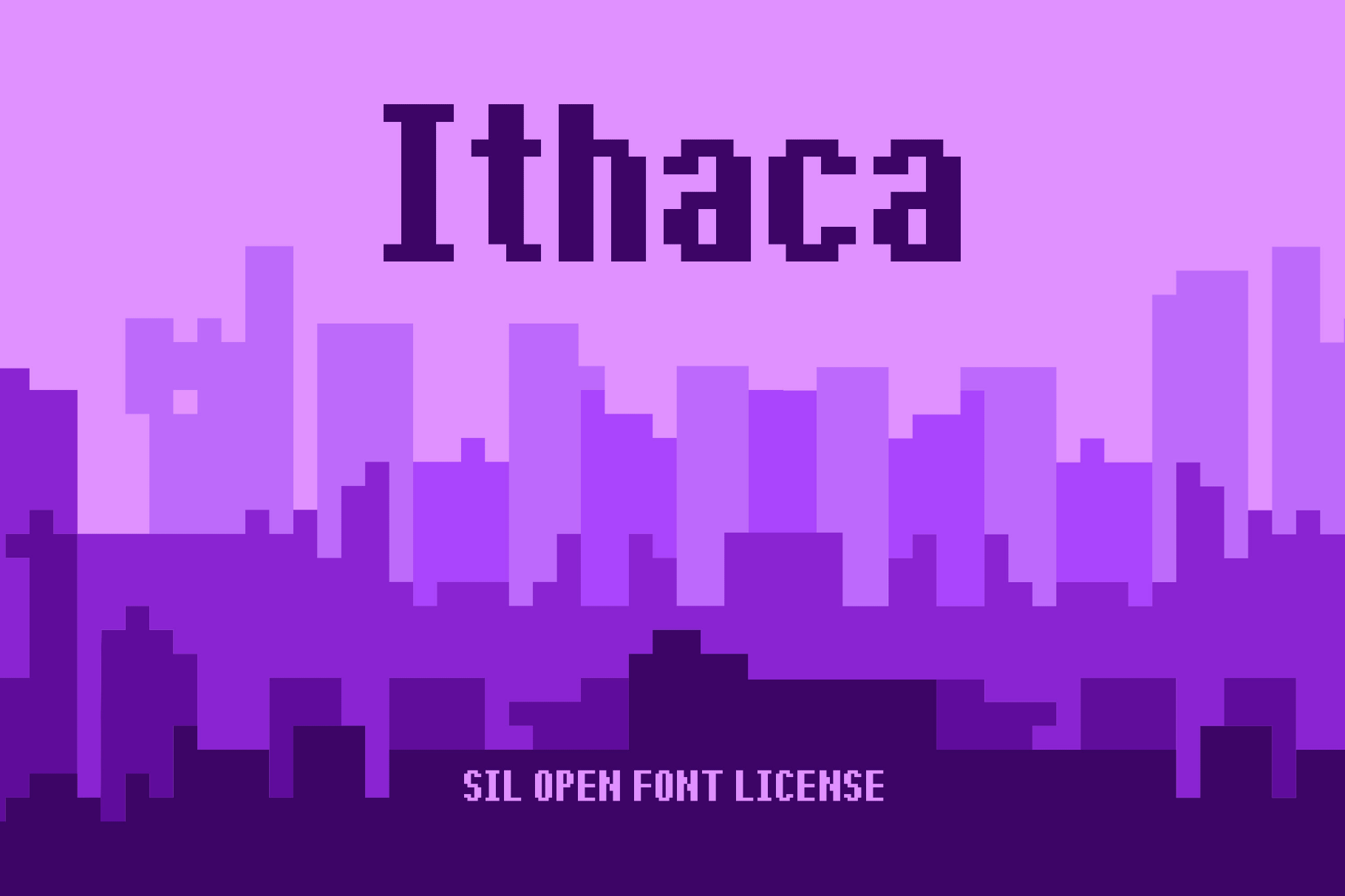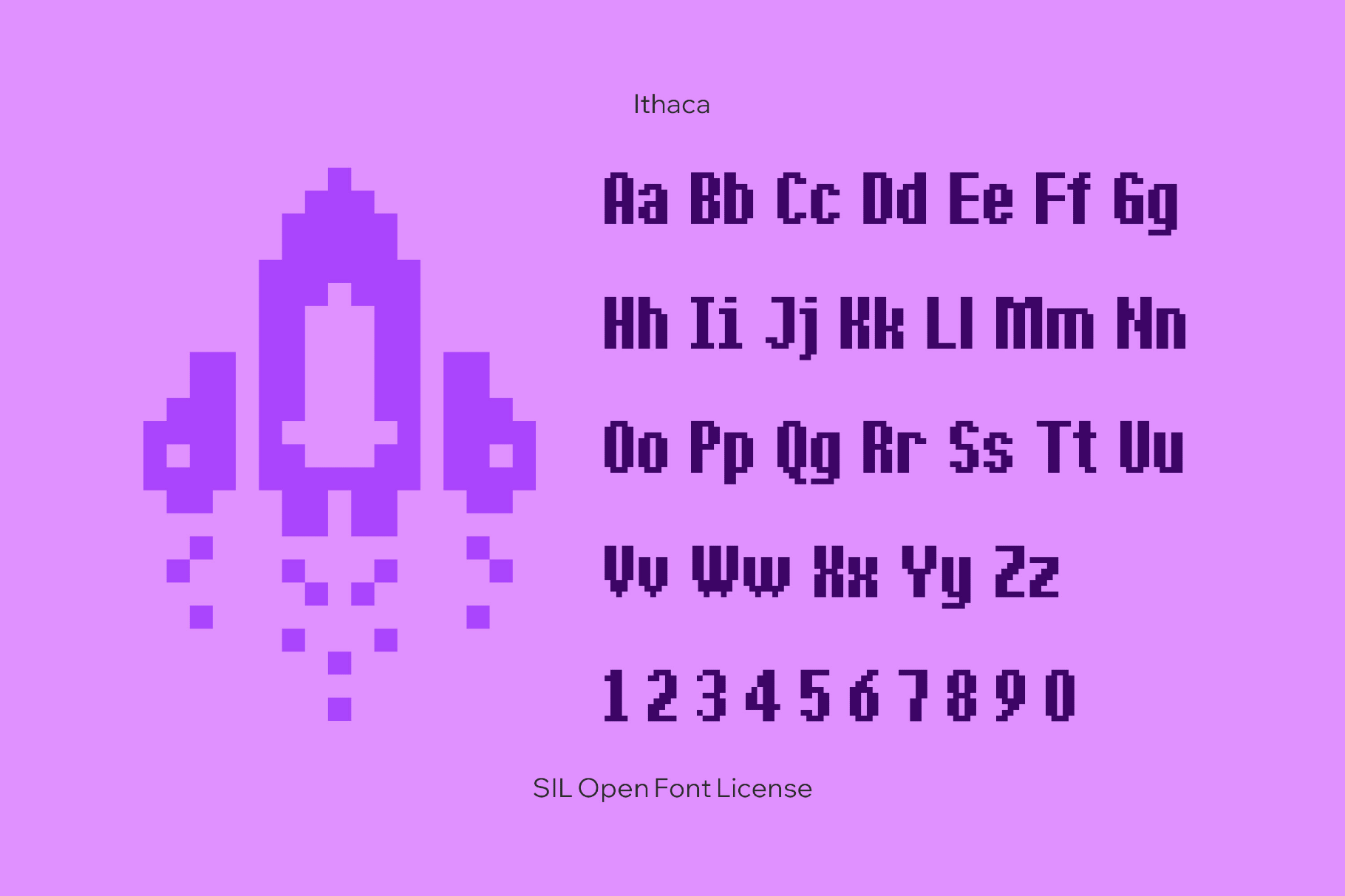
Ithaca
Ithaca is a bold monospaced pixel font with a clear grid and sharp edges. The sturdy strokes and even spacing keep long code lines, chat logs, and menus tidy. Ideal for IDE screenshots, retro OS and launcher mockups, RPG game UI, streaming overlays and alerts, data dashboards, pixel-art editorial layouts, localization-heavy products, and social posts.
- Uppercase and lowercase letters, numbers, punctuation, symbols, and extended sets for mathematical notation and metrics.
- Extra symbols and dingbats for UI icons, dividers, and decorative markers.
- Multilingual coverage across extended Latin, extended Cyrillic, and extended Greek scripts.